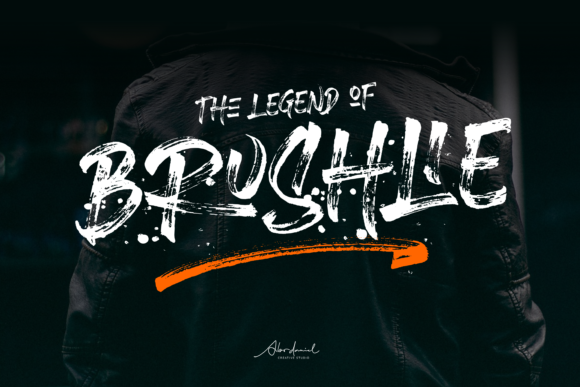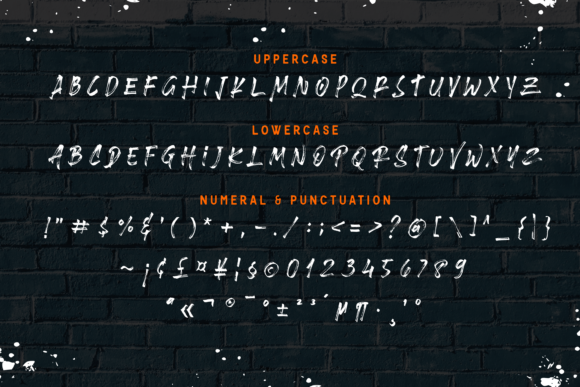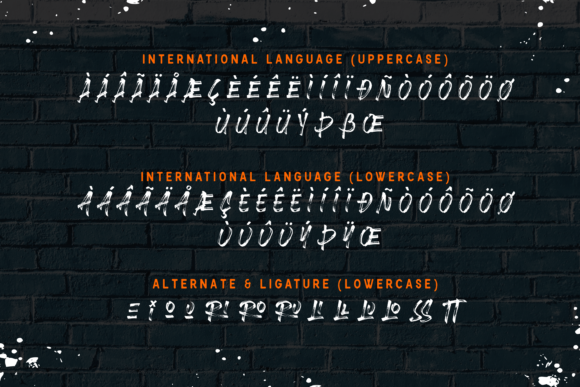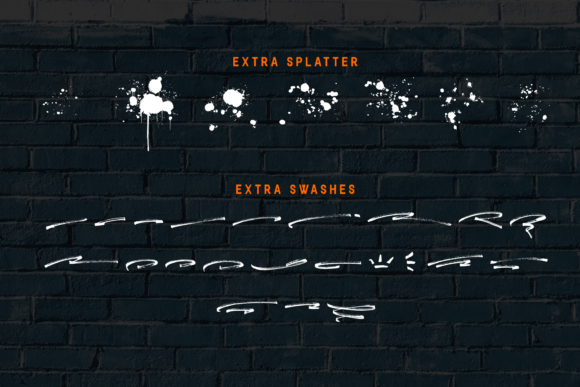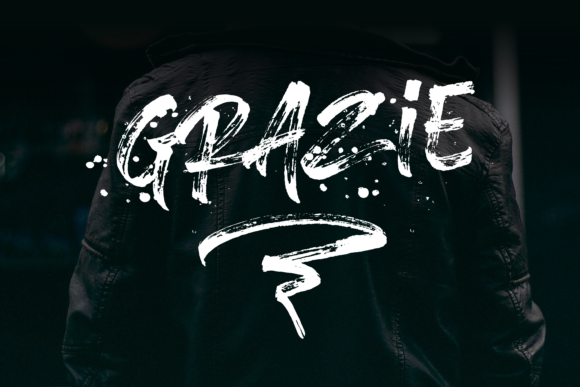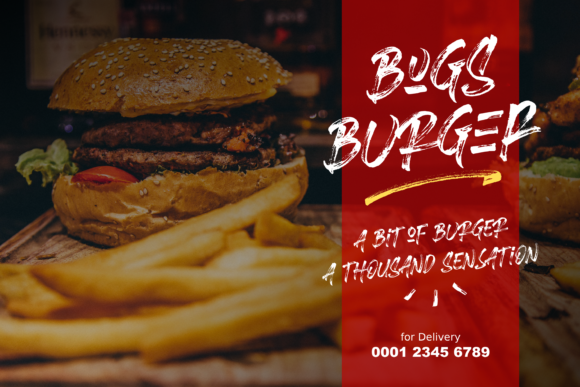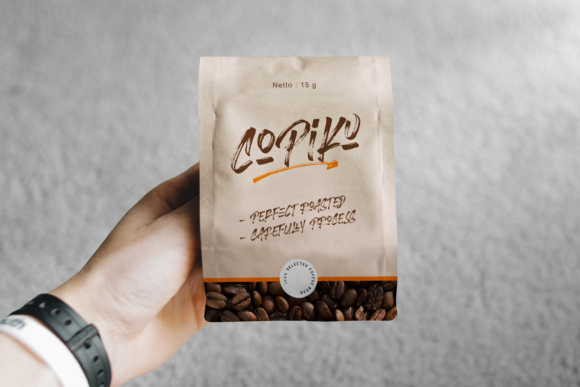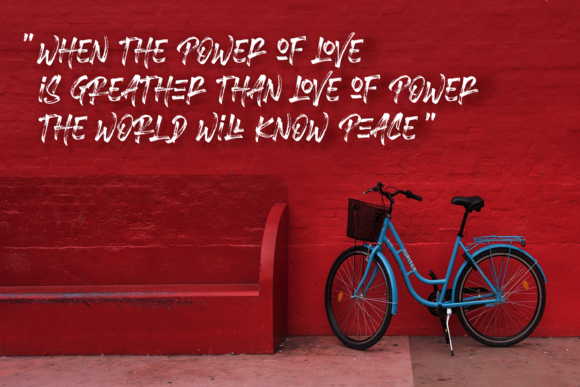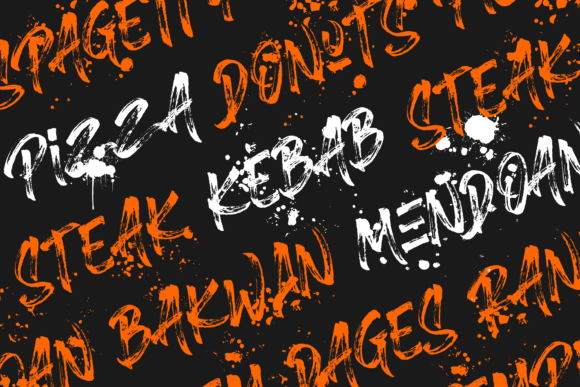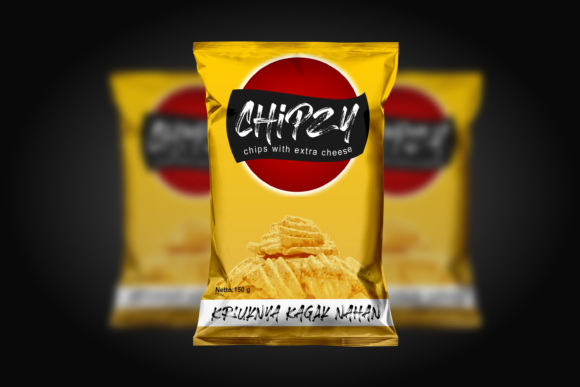
HomeScript FontsBrushlie Font Script Fonts Brushlie Font FacebookXPinterestWhatsApp Brushlie Font Poster 2 Brushlie Font Poster 3 Brushlie Font Poster 4 Brushlie Font Poster 5 Brushlie Font Poster 6 Brushlie Font Poster 7 Brushlie Font Poster 8 Brushlie Font Poster 9 Brushlie Font Poster 10 Brushlie Font Poster 11 Brushlie Font Poster 12 Brushlie Font Poster 13 About Brushlie Font Brushlie is a stunning brush font with a bold vibe. It will turn any design idea into a true standout! DOWNLOAD ON CREATIVE FABRICAThis font is sold and delivered by Creative Fabrica. Font Canyon may earn a commission if you buy through this link. People also explored Mounhal Font Scriptofino The Rynellia Font Flower and Leaves Font Happy Mandala Font Quitgan Font Cherish Font Strongend Extra Light Font Dairy Day Font 330 0 TagsBrushlie Font Previous articleThe Outstand FontNext articleBrighter Font LEAVE A REPLY Cancel reply Comment: Please enter your comment! Name:* Please enter your name here Email:* You have entered an incorrect email address! Please enter your email address here Website: Save my name, email, and website in this browser for the next time I comment. Personal Use Free True Love Personal Use Free Read more about this font Mallvirra Personal Use Free Read more about this font Lion Teen Personal Use Free Read more about this font Cuttie Personal Use Free Read more about this font BLOG How to Install and Use Fonts on Windows, macOS, and Web Projects How to Install and Use Fonts on Windows, macOS, and Web Projects Fonts are a crucial part of design and branding. Whether you’re designing a... How to Cut Any Font on Cricut: Convert a Font to SVG (Free) Best Fonts for YouTube Videos: Make Your Thumbnails Stand Out Using Fonts in Digital Marketing: Tips to Strengthen Your Brand Identity